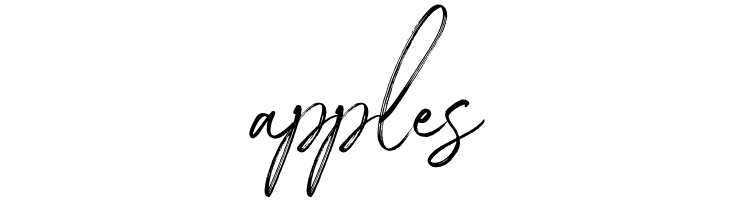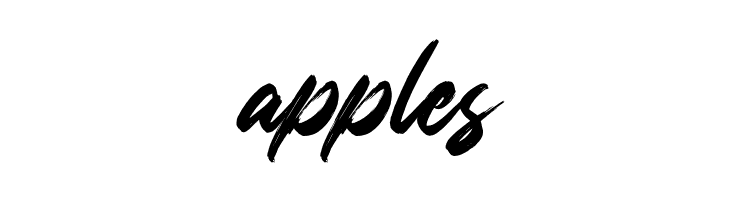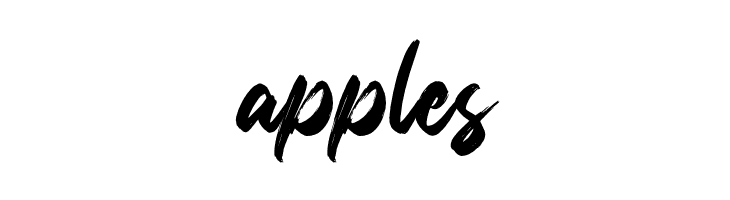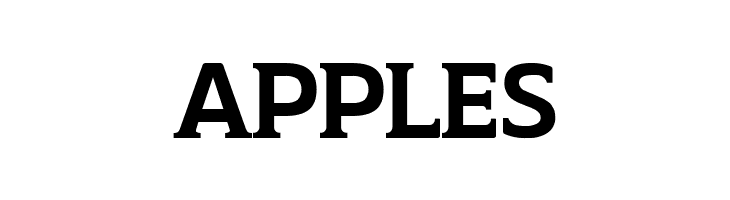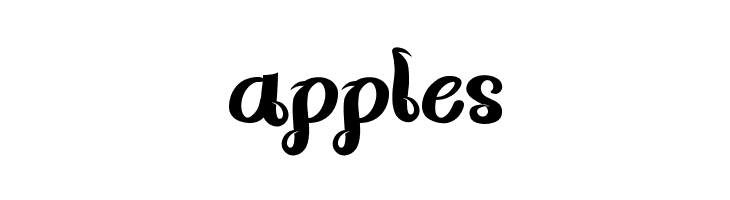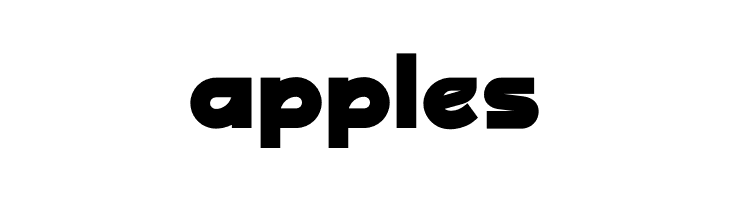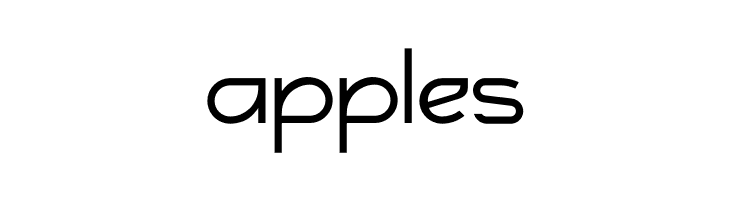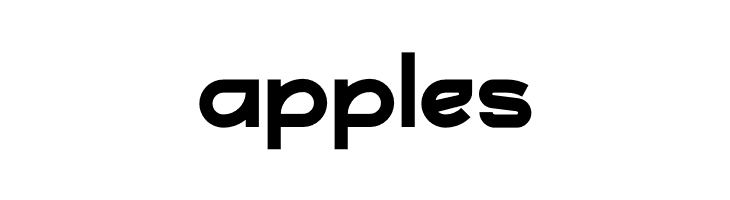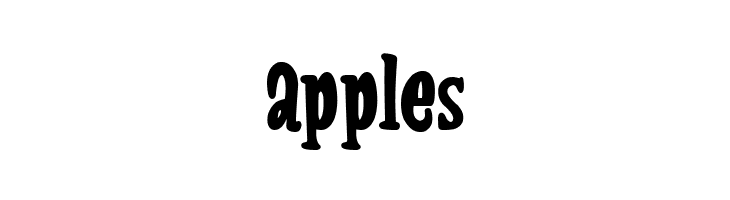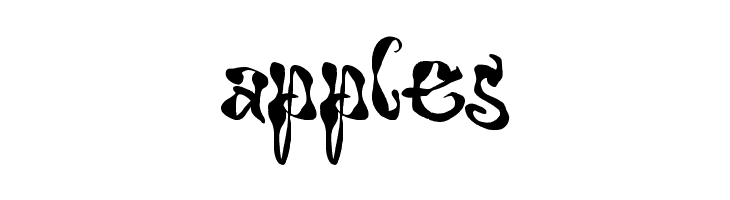
A dynamic, expressive handwritten font with fluid, cursive strokes.
A bold, brush-style italic font with dynamic, handwritten characteristics.
A bold, brush-style font with dynamic, hand-painted strokes.
A flowing, cursive script font with elegant, interconnected strokes.
A bold, modern font with strong, thick strokes and slightly condensed letterforms.
A bold, decorative font with playful curls and thick strokes.
A bold, geometric font with clean lines and a modern aesthetic.
A modern, geometric font with clean lines and a professional appearance.
A modern, geometric font with bold, consistent strokes and high legibility.
A bold, playful font with a whimsical and dynamic style.
An intricate, gothic-style font with dramatic flourishes and sharp edges.
Expressive, handwritten cursive script with fluid, slanted strokes.
Expressive handwritten script with fluid, connected strokes.